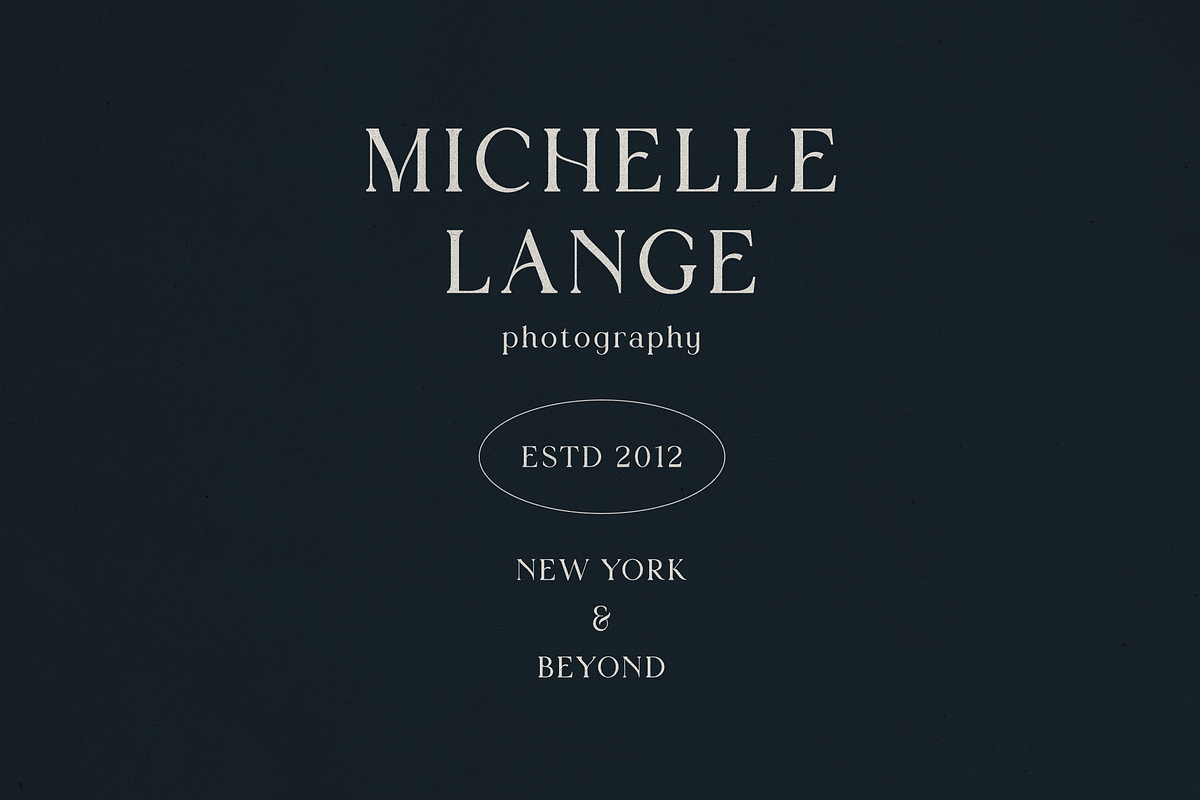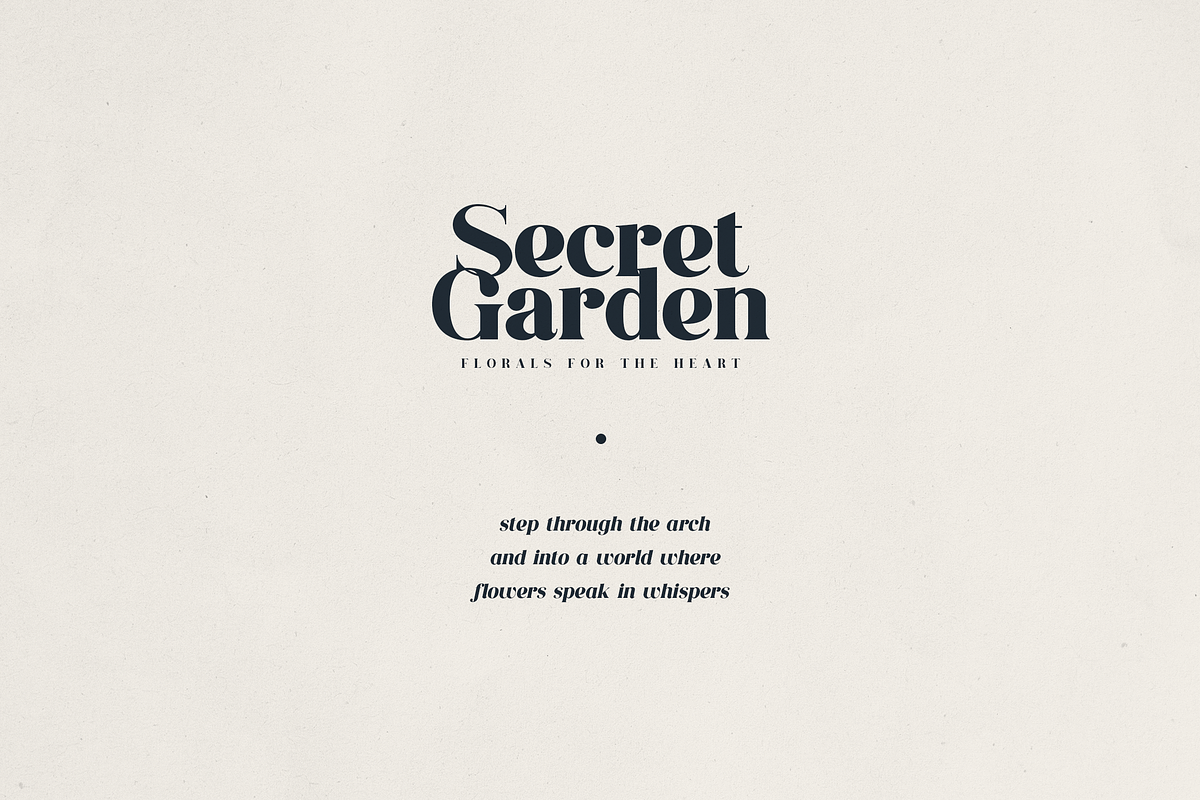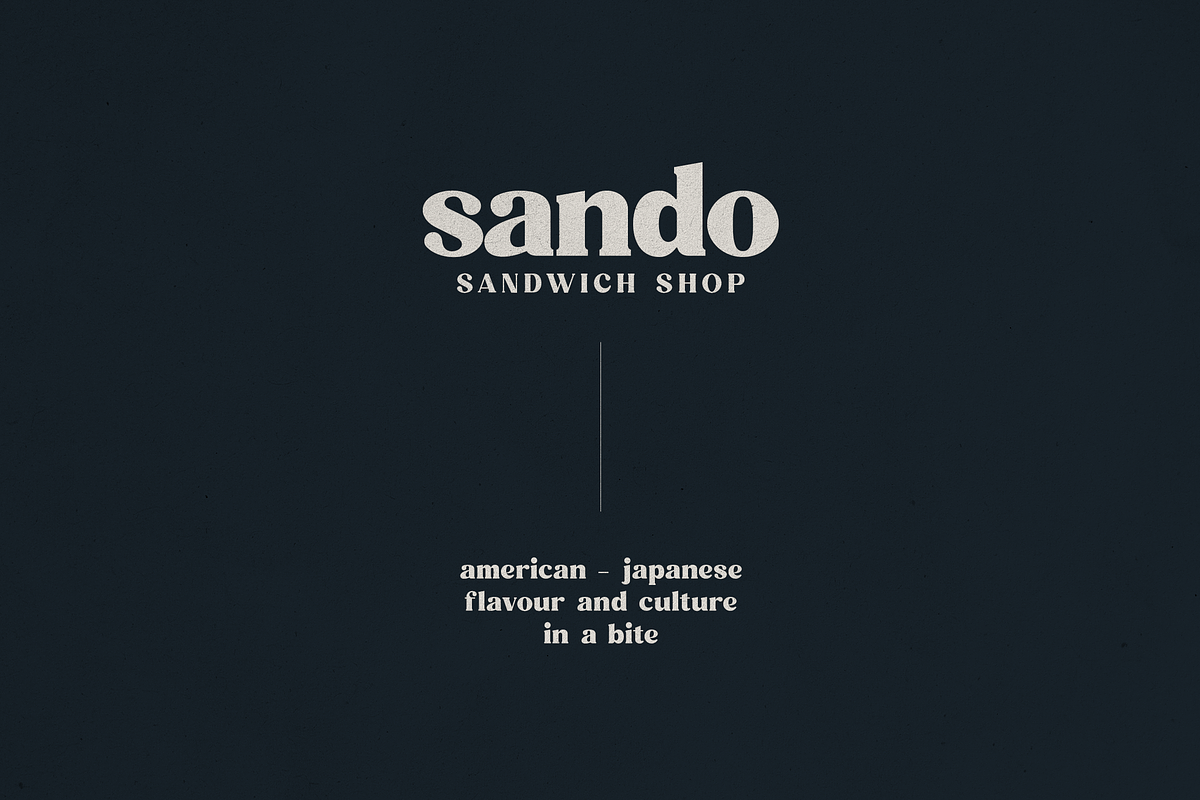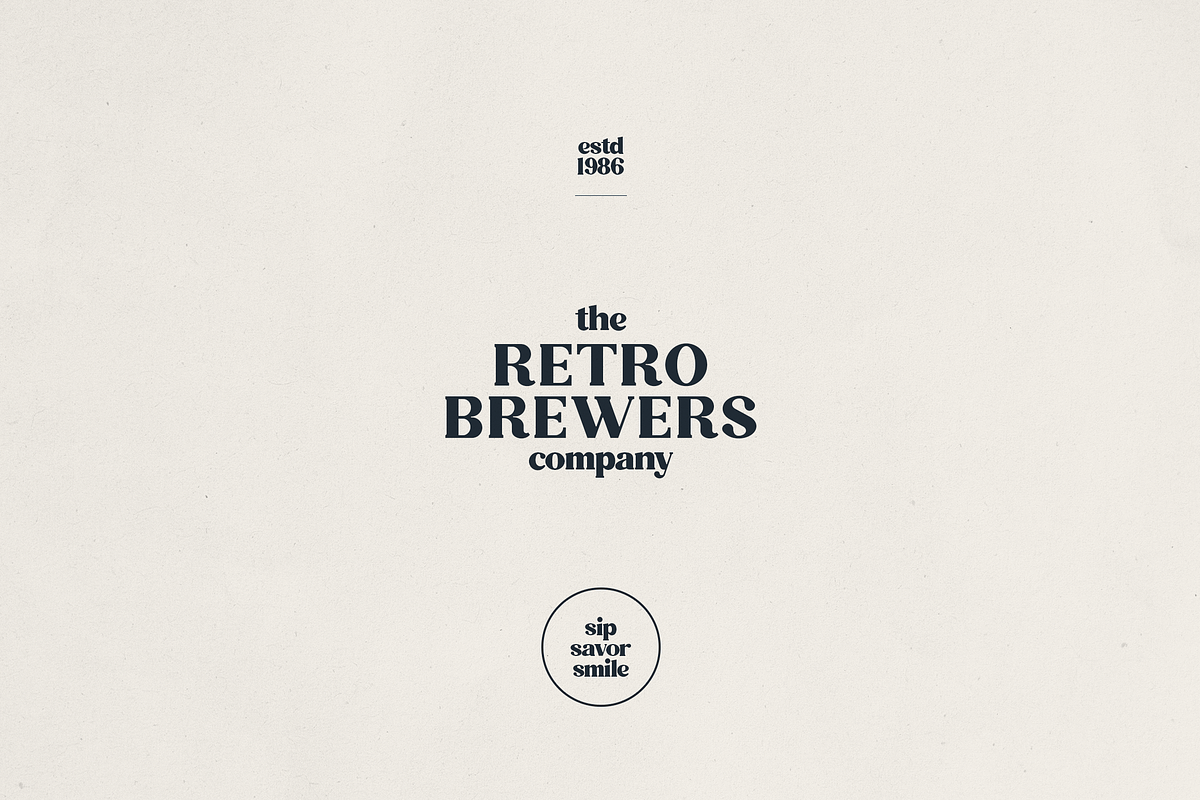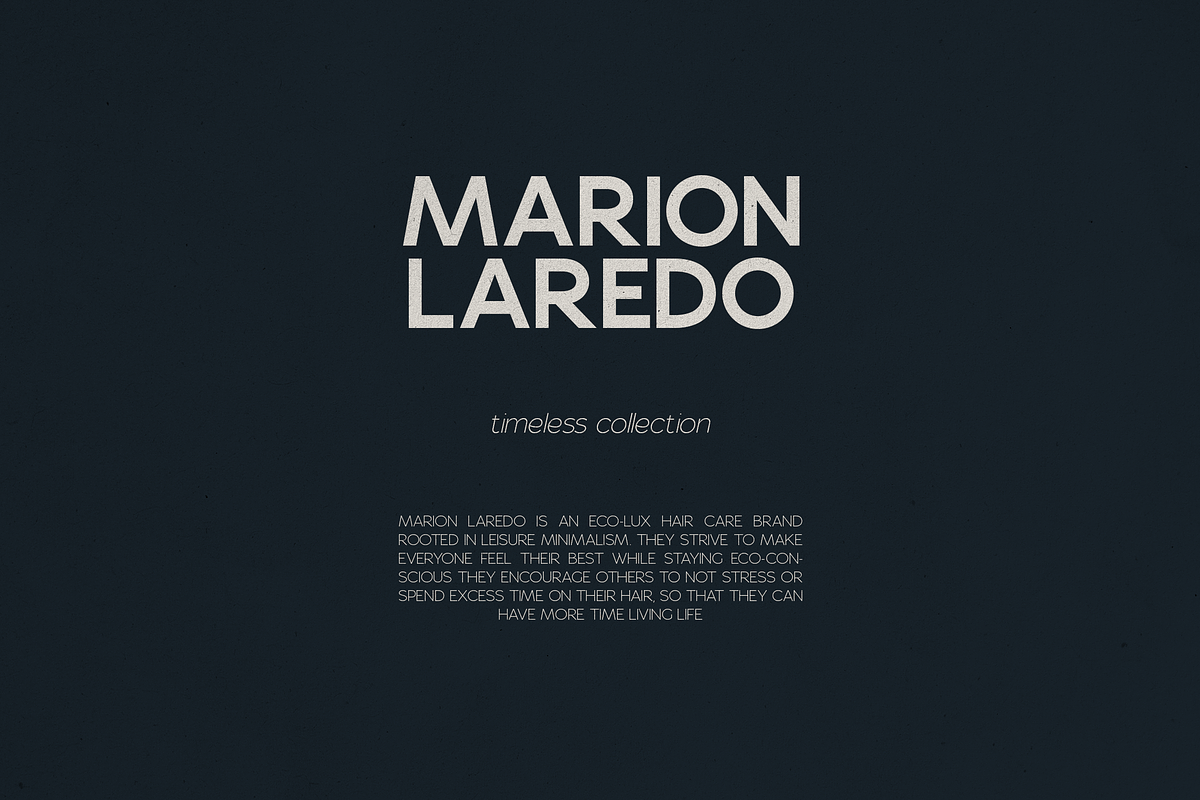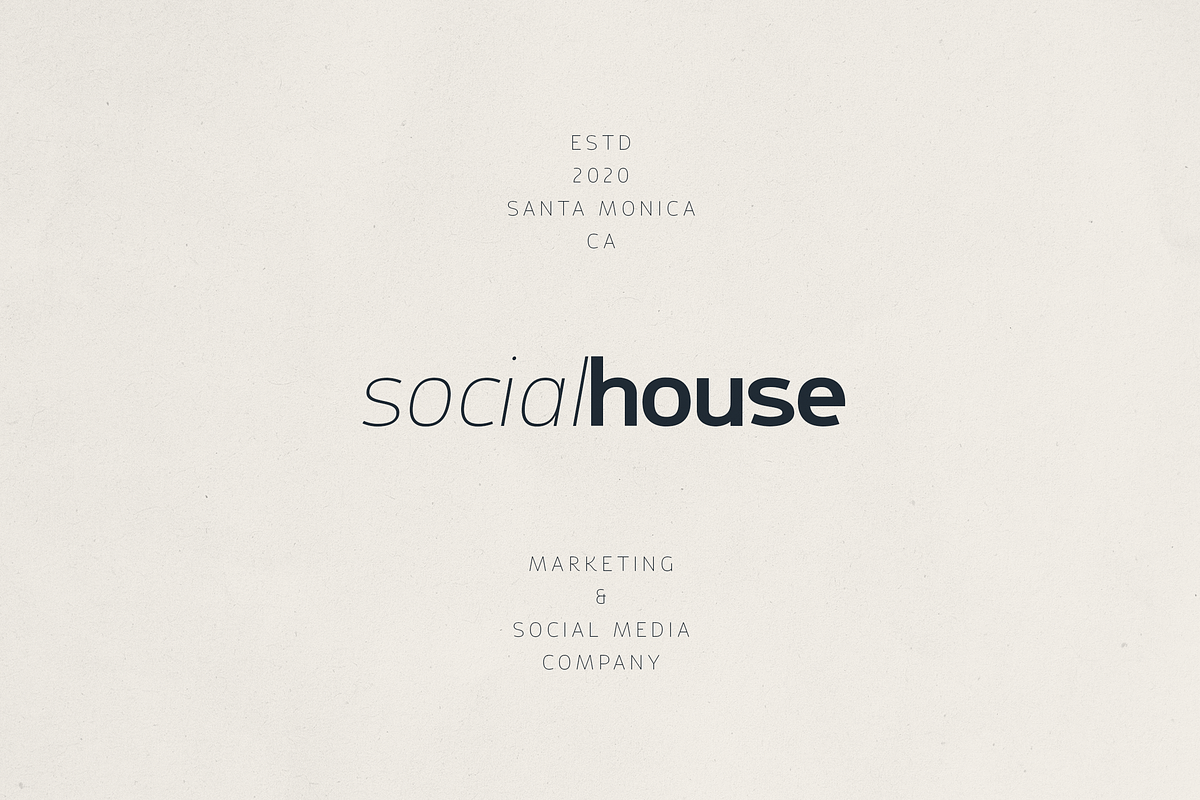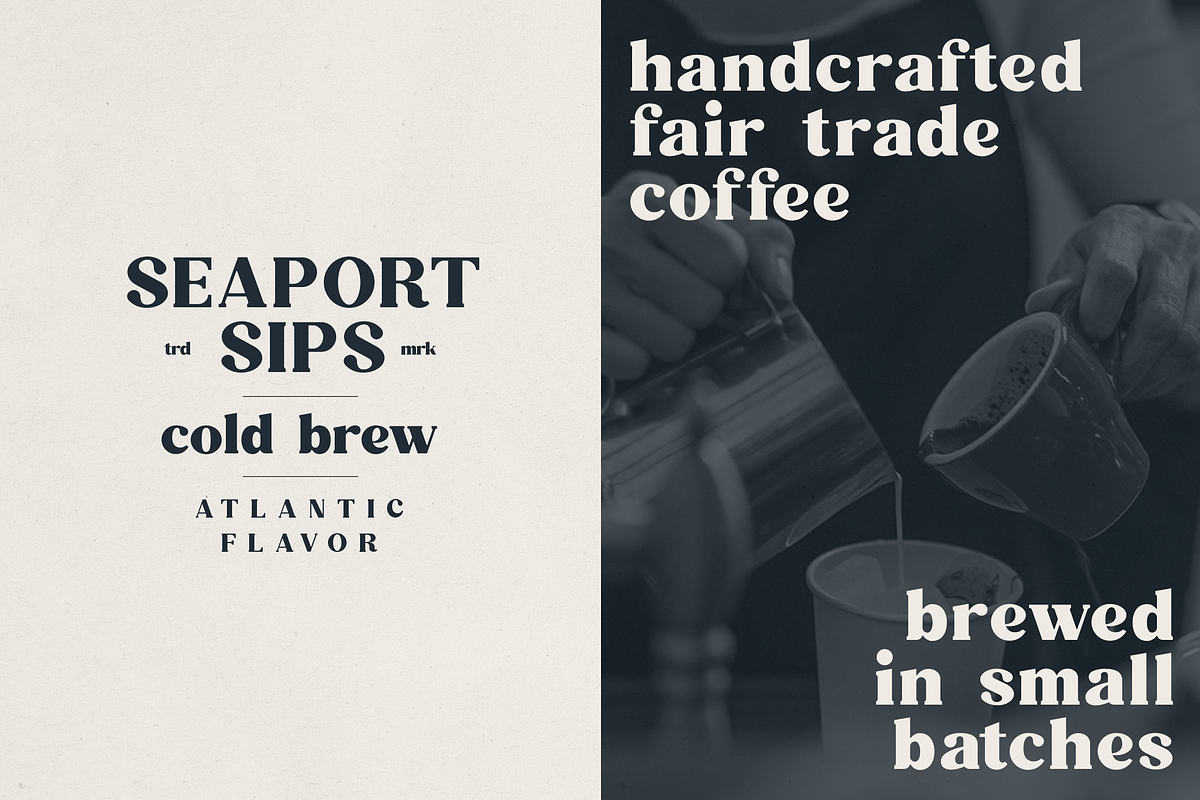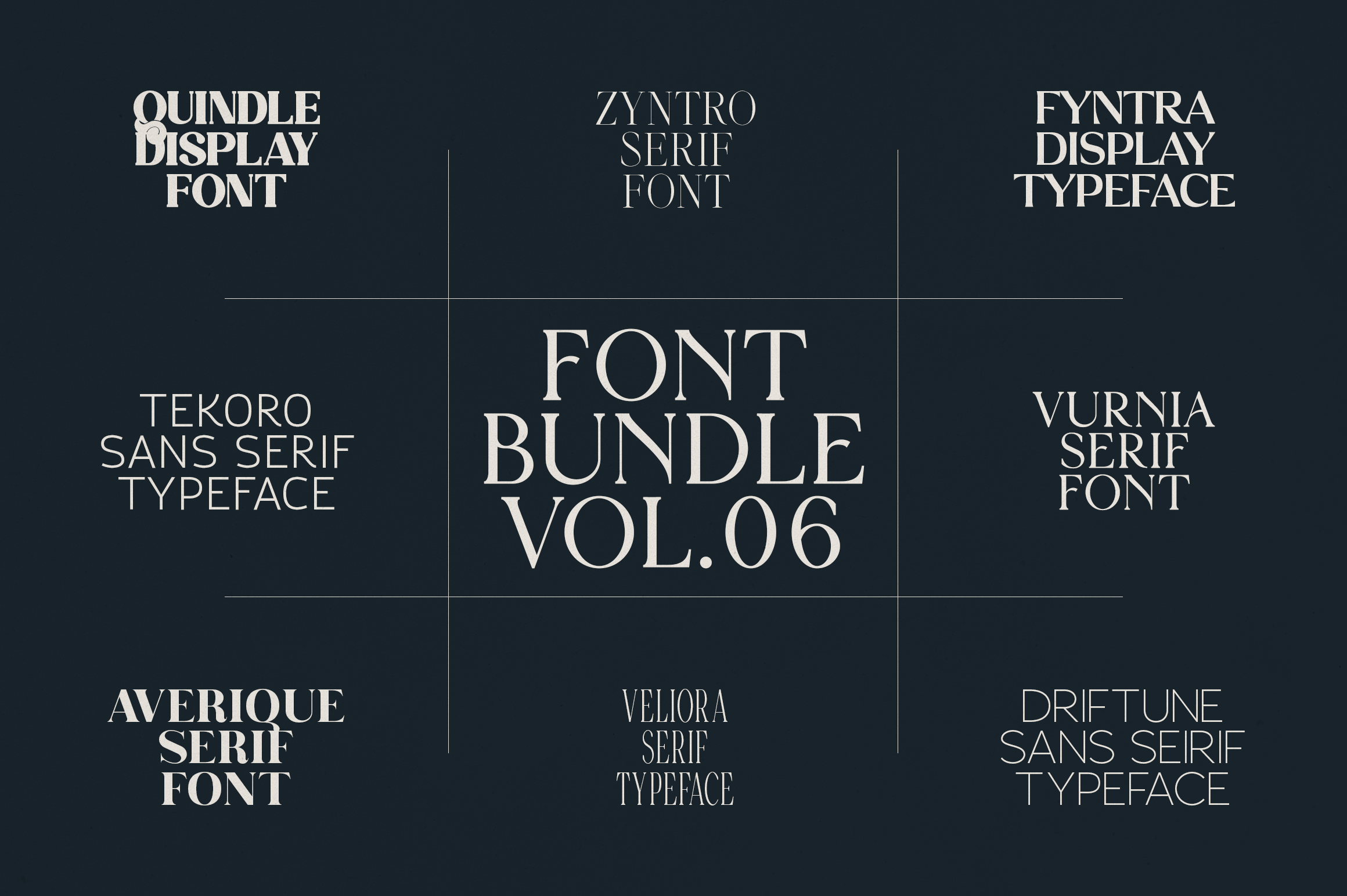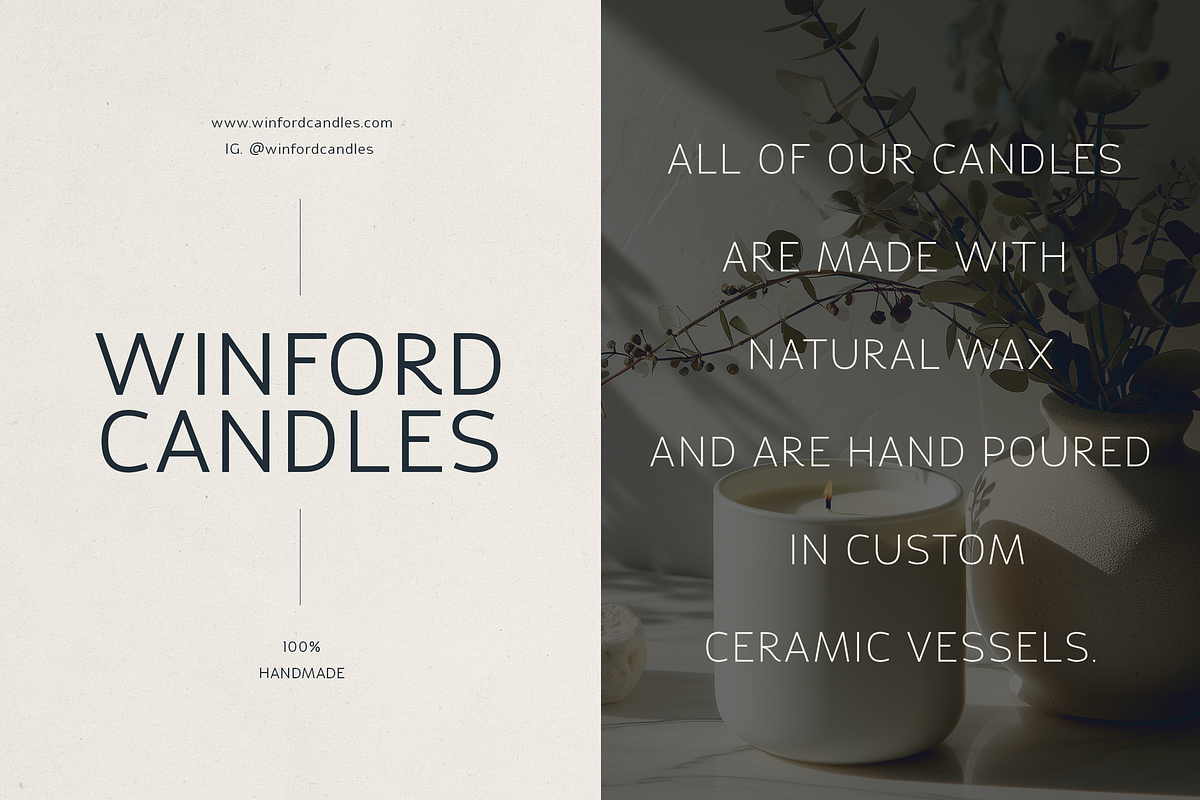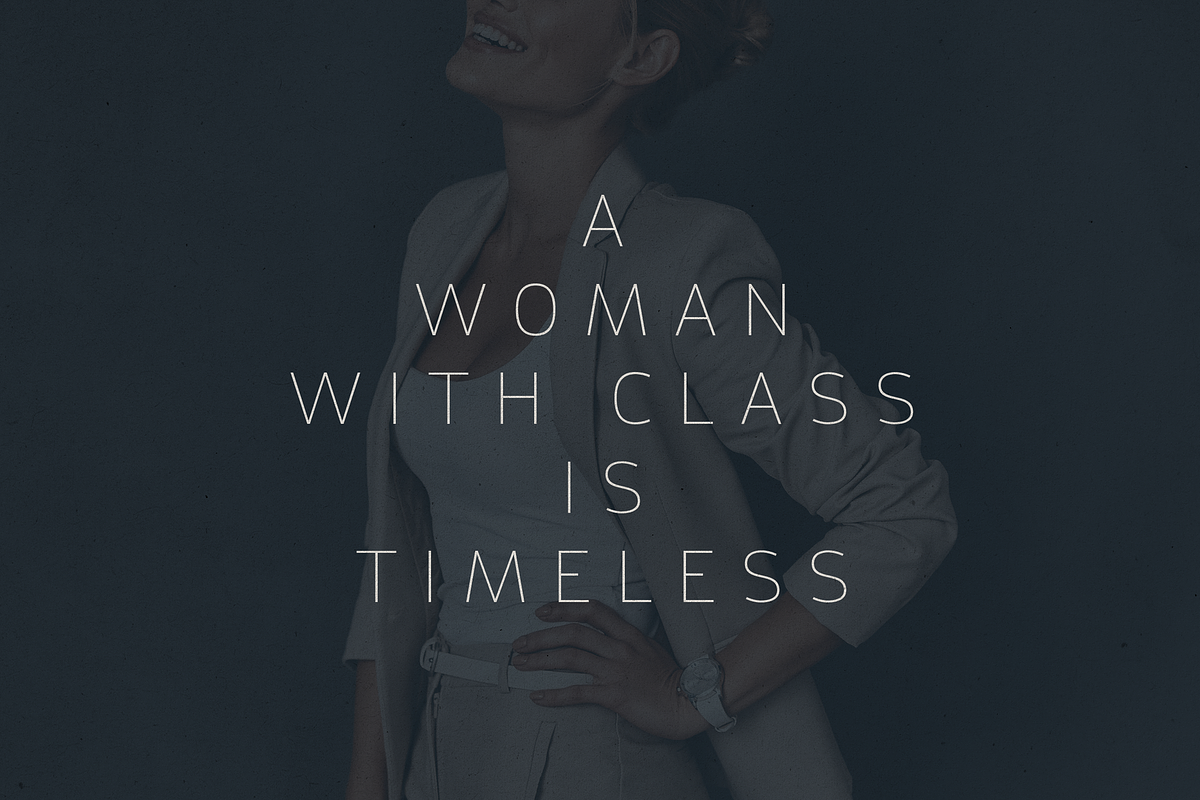
Font Bundle Vol.06 - 8 Premium Fonts
Font Bundle Vol.06 – Premium Serif, Display & Sans Serif Typeface Collection
Elevate your design projects with Font Bundle Vol.06, a curated selection of 8 professional fonts designed to bring elegance, versatility, and modern sophistication to your creative work. Whether you’re building a luxury brand, editorial layout, packaging design, or social media identity, this bundle has everything you need to stand out.
This exclusive collection combines serif, sans serif, and display typefaces, offering endless creative possibilities for logos, branding, websites, print design, fashion, and lifestyle projects.
Fonts Included:
- Quindle Display Font – Vintage-inspired and bold for striking headlines.
- Zyntro Serif Font – Sleek and timeless, perfect for editorial and print.
- Fyntra Display Typeface – Elegant with character, ideal for modern branding.
- Tekoro Sans Serif Typeface – Clean and versatile, excellent for minimal layouts.
- Vurnia Serif Font – Refined and stylish for wedding, beauty, and fashion.
- Averique Serif Font – Strong yet sophisticated, made for logos and packaging.
- Veliora Serif Typeface – Tall and chic, great for magazine and luxury projects.
- Driftune Sans Serif Typeface – Modern and adaptable for digital and print.
Why This Bundle Stands Out:
✔️ Perfect for branding, fashion, editorial, photography, and product packaging ✔️ A mix of bold display fonts, minimal sans serifs, and refined serifs ✔️ Professional-quality fonts for luxury, modern, and timeless design styles ✔️ Great for logos, websites, invitations, business cards, posters, and social media ✔️ One bundle that saves you time and gives you endless design flexibility
If you’re ready to upgrade your font library with typefaces that embody style, class, and creative edge, Font Bundle Vol.06 is the perfect choice.